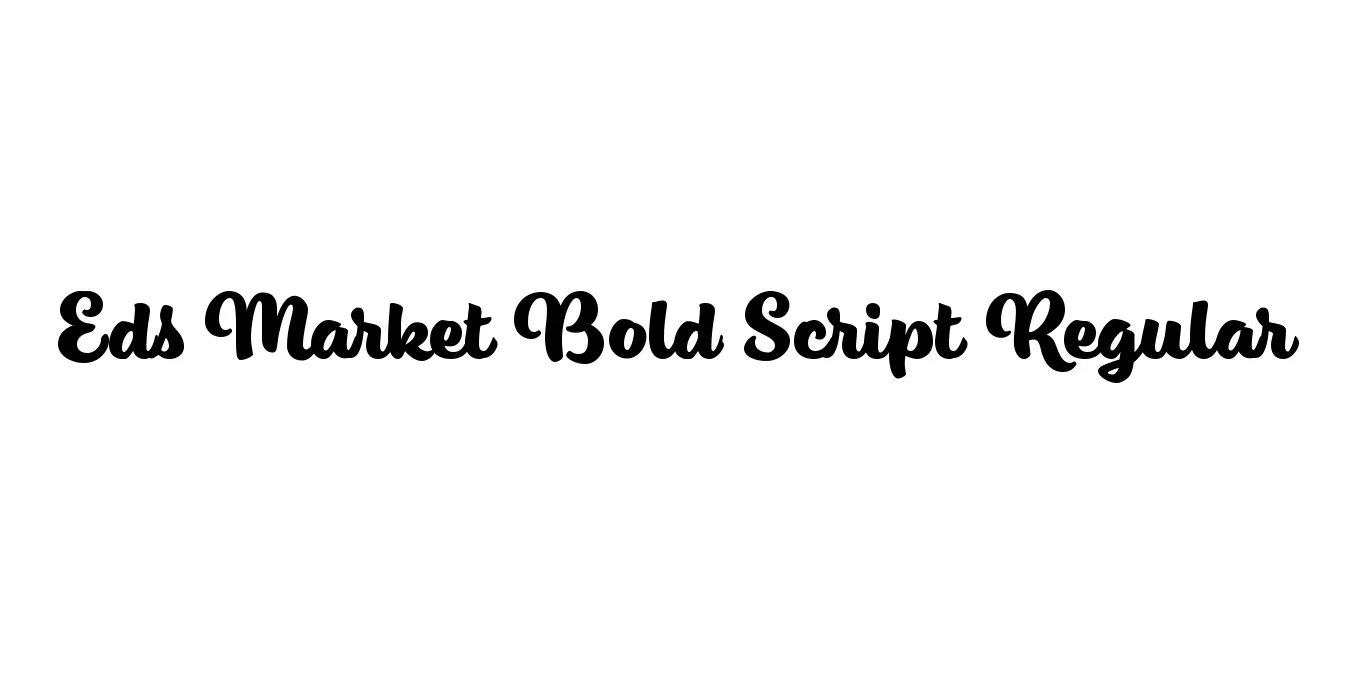
Eds Market Bold Script Regular
Designed by Laura Worthington
Eds Market Bold Script Regular is a masterfully crafted typeface designed by Laura Worthington, drawing inspiration from the warm, hand-lettered signage found in mid-century American grocery stores and markets. This font captures a specific era of advertising where casual elegance met practical communication, resulting in a script that feels both nostalgic and refreshingly authentic. Its bold weight ensures high visibility, making it an excellent choice for designers looking to inject personality and a human touch into their projects.
The typeface is part of the larger Eds Market collection, which features a variety of weights and styles meant to complement one another seamlessly. The Script Regular version stands out for its fluid strokes and natural ligatures, providing a cohesive look that avoids the mechanical appearance of standard digital fonts. Whether used for branding or editorial design, it brings a sense of artisanal quality and retro charm that is hard to replicate with modern, sterile typefaces.
Eds Market Bold Script Regular Best Uses
Perfect for creating authentic, retro-style logos and brand identities.
Ideal for food and beverage products seeking an artisanal, farm-to-table aesthetic.
Excellent for storefront signs, menus, and window displays due to its high visibility.
Great for print ads and social media graphics that require a friendly, approachable tone.